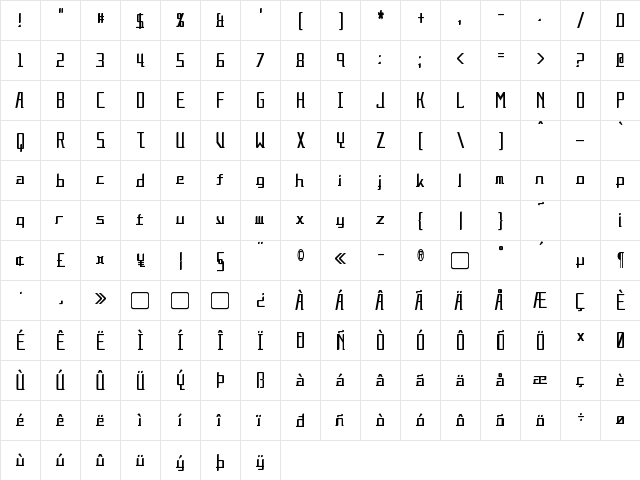
Alternation Condensed Regular
| Foundry | Neale Davidson |
| Designer | Neale Davidson |
Design Context for Alternation Condensed Typeface
Alternation Condensed takes a measured approach to typography — its balanced proportions and neutral character make it a reliable workhorse for both digital and print work. Its narrow stance lets it pack a punch even in space-constrained designs.